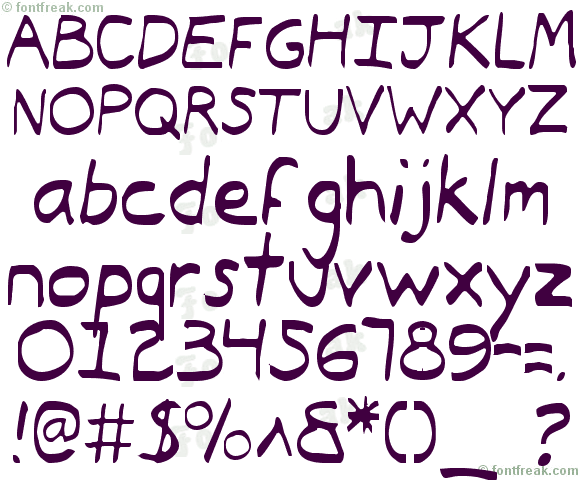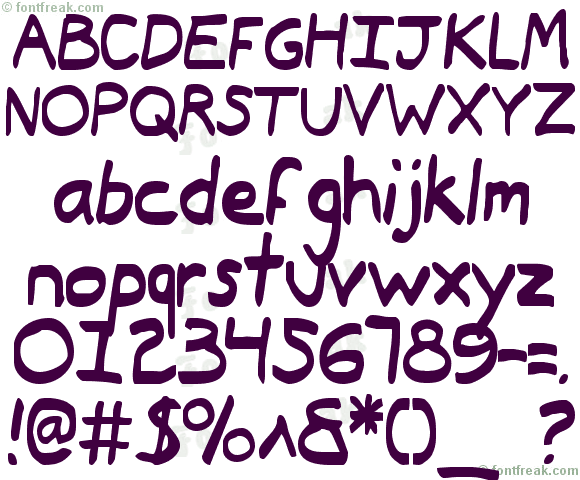
Typeecanoe
Typeecanoe Light
Typeecanoe - E by Iconian Fonts is a captivating display font that merges artistic flair with functional design. Released in 2002, this font showcases a unique visual style characterized by its light stroke weight and clean lines, providing an elegant yet approachable aesthetic. The letters feature a moderate contrast, allowing for readability while maintaining an artistic presence. The spacing is well-balanced, ensuring that each character stands out without feeling overcrowded, making it suitable for a variety of design applications.
This font excels in creative projects where personality is key. It is particularly well-suited for wedding invitations, where its stylish yet legible design can help convey the elegance of the occasion. Typeecanoe - E also shines in movie posters, adding a touch of sophistication that grabs attention. Restaurant menus benefit from its distinctive look, enticing diners with an inviting presentation. Additionally, this font can enhance branding materials for small businesses, giving them a unique identity that resonates with their target audience. Graphic designers, content creators, and small business owners will find this font to be a valuable addition to their typographic toolkit.
What truly sets Typeecanoe - E apart is its versatile appeal. It combines a light, airy feel with a strong visual identity, making it adaptable for various design needs. Whether you're crafting an intricate invitation or a bold promotional poster, this font's unique characteristics ensure your message is both stylish and clear. With the Typeecanoe - E font free download available, you can easily incorporate this stunning typeface into your next project and elevate your design to new heights. This font is not just about aesthetics; it embodies a creative spirit that can inspire and connect with audiences in a meaningful way.